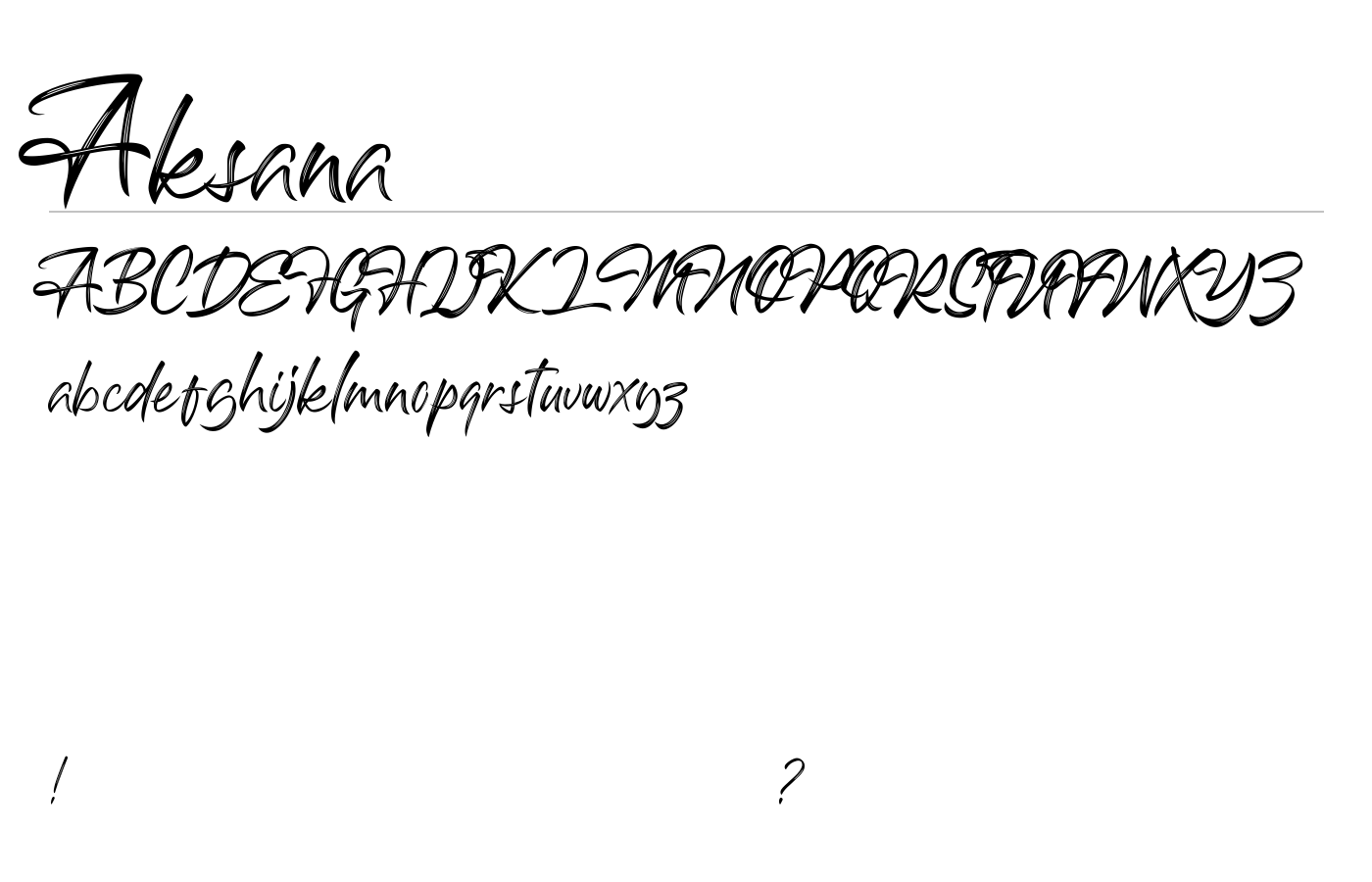
Aksana is a lively, handwritten script font featuring elegant, flowing strokes with a medium contrast that mimics natural brush pen calligraphy. Its tall, slender letterforms with unique swashes and loops convey a personal, artistic feel, making it perfect for creative branding, invitations, and eye-catching headlines where a stylish, expressive touch is desired.
Aksana Font
About Aksana Font